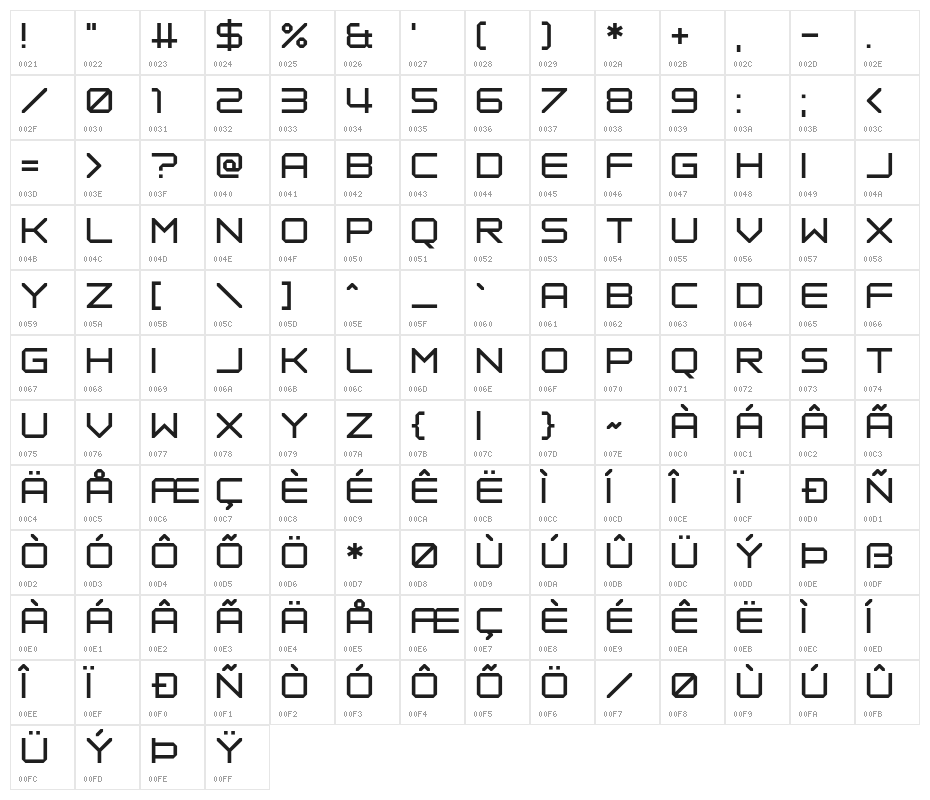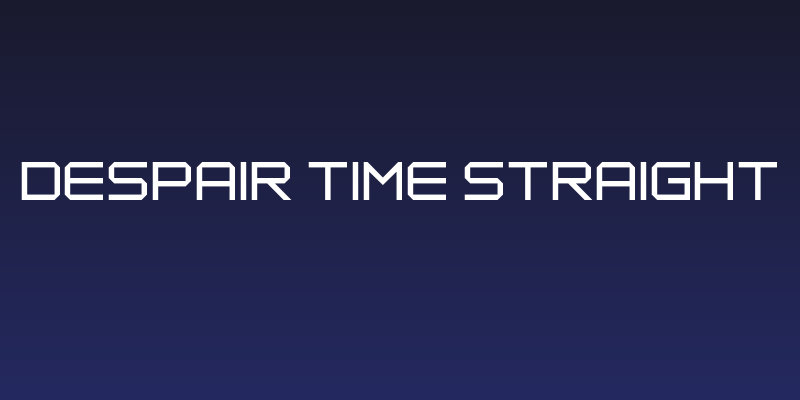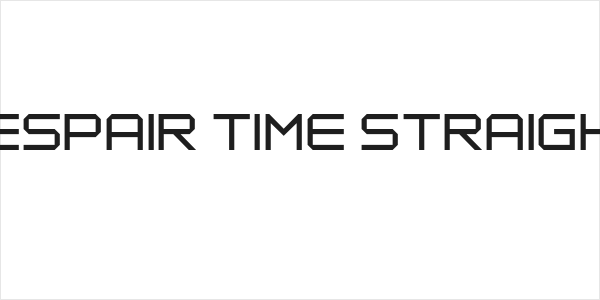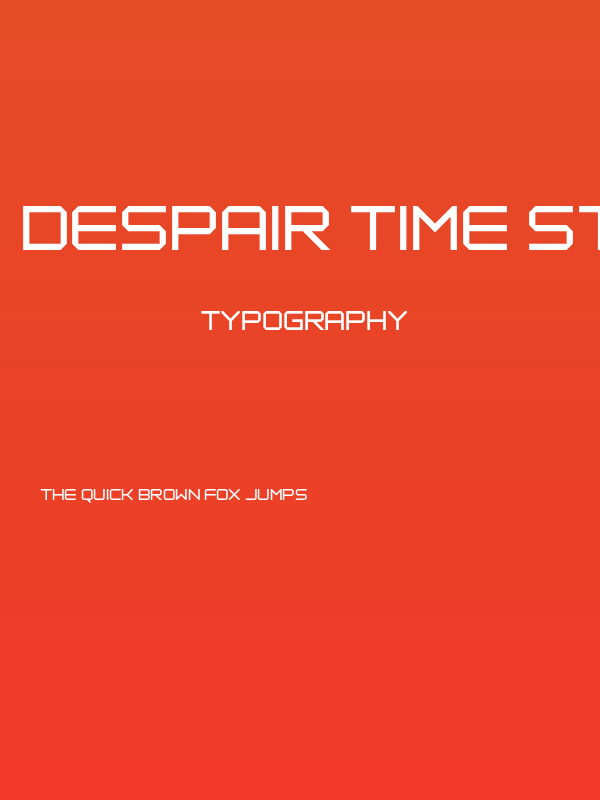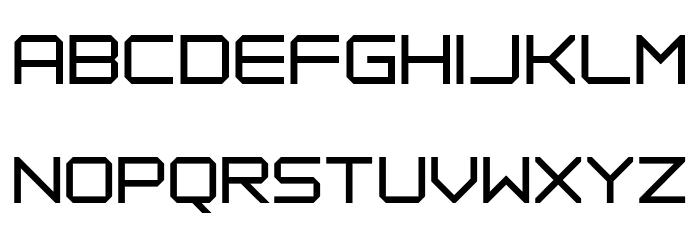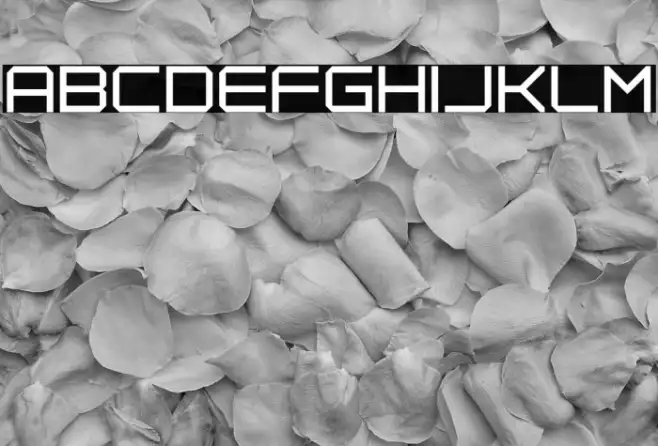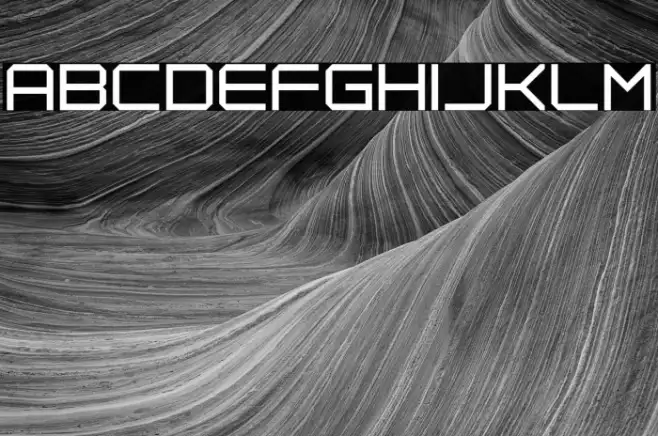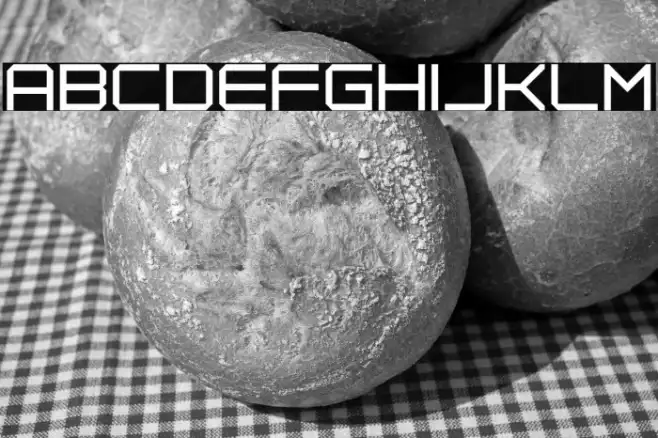
Despair Time Straight Font
Despair Time Straight Description
This font features a geometric and futuristic design, characterized by its straight lines and angular corners. The uppercase and lowercase letters maintain a consistent height, giving it a monospaced appearance. The numerals and special characters follow the same design principles, ensuring uniformity across all glyphs. The font's structure is clean and minimalistic, making it suitable for modern and tech-oriented projects. Its distinct style is both eye-catching and functional, providing clarity and readability.
| Use Case | Headlines, Logos, Digital Interfaces |
| Proposed Projects | Ideal for tech branding, digital interfaces, video game design, and modern advertising. |